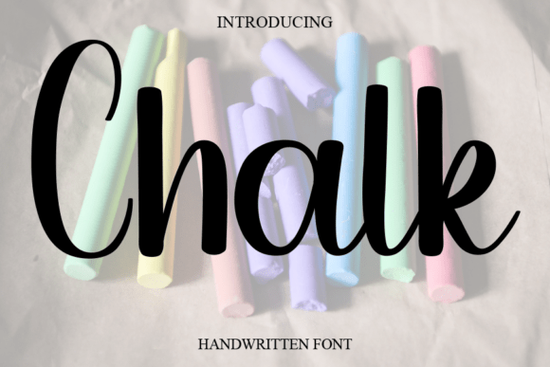
Chalk Font is a delightful choice for anyone looking to add a soft, personal touch to their designs. This cursive, handwritten font has a gentle and warm feel that makes it perfect for a wide range of creative projects. Whether you're working on a wedding invitation, a greeting card, or a branding project, Chalk Font brings a sense of charm and elegance that's hard to match.
If you're searching for a font that feels both casual and refined, Chalk Font fits the bill. It works well with other similar styles, like Magnolia Calligraphy Font or Wednesday Font, which also offer a handcrafted look. These fonts can be used together to create a cohesive design theme that feels authentic and expressive.
What Makes Chalk Font Stand Out?
Chalk Font is ideal for designers who want to convey warmth and personality in their work. Its flowing script gives a handmade quality that adds character to any project. It’s especially popular among crafters and small businesses looking to create unique, eye-catching materials without the need for complex design skills.
The font is versatile enough to work in both digital and print formats. You can use it for logos, social media graphics, packaging, and more. Its readability makes it suitable for body text as well as headings, giving you flexibility in how you apply it.
Best Uses for Chalk Font
Weddings are one of the most common applications for Chalk Font. Its romantic and whimsical style pairs perfectly with invitations, thank-you cards, and ceremony programs. It also works well for fashion brands, where a personalized touch can make a big difference in how a brand is perceived.
For print-on-demand sellers, Chalk Font is a valuable addition to your design toolkit. It can be used to create custom t-shirts, mugs, and other merchandise that feels unique and personal. Its soft appearance helps products stand out in a crowded market.
- Wedding stationery
- Greeting cards
- Branding and logos
- Fashion and lookbook designs
- Marketing promotions
How to Use Chalk Font Effectively
To get the most out of Chalk Font, consider pairing it with simpler typefaces for contrast. For example, using it alongside a clean sans-serif font like Smile Font can create a balanced and professional look. This combination is great for headers and body text in presentations or web designs.
When using Chalk Font, keep the design uncluttered. Let the font shine by avoiding too many decorative elements. It works best when used sparingly, allowing its natural beauty to take center stage.
If you're interested in exploring other similar fonts, you might enjoy checking out Strong Girl Font or Wednesday Font. Each has its own unique style that can complement or contrast with Chalk Font depending on your needs.
Final Thoughts
Chalk Font is a reliable and stylish choice for designers, crafters, and small businesses. Its soft, handwritten look adds a personal and romantic feel to any project. By using it thoughtfully, you can enhance your designs without overcomplicating them.
Take some time to experiment with Chalk Font in your next project. You may find that it becomes one of your go-to fonts for adding that special touch.
Quick Checklist:
- Try Chalk Font with simple, clean layouts
- Pair it with other script fonts for variety
- Use it for weddings, greeting cards, or branding